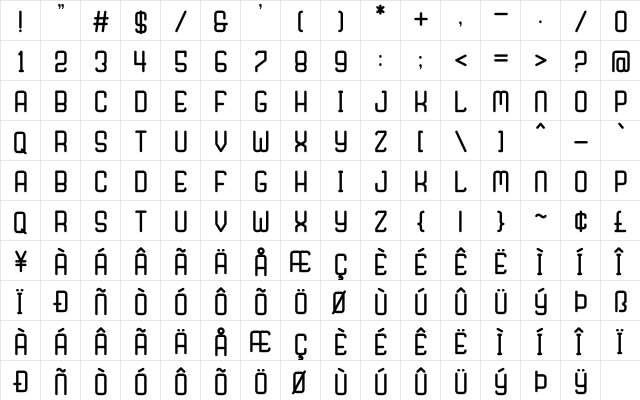
Nagaro Regular Font Preview
Nagaro Regular
Design Context for Nagaro Typeface
Nagaro takes a measured approach to typography — its balanced proportions and neutral character make it a reliable workhorse for both digital and print work.